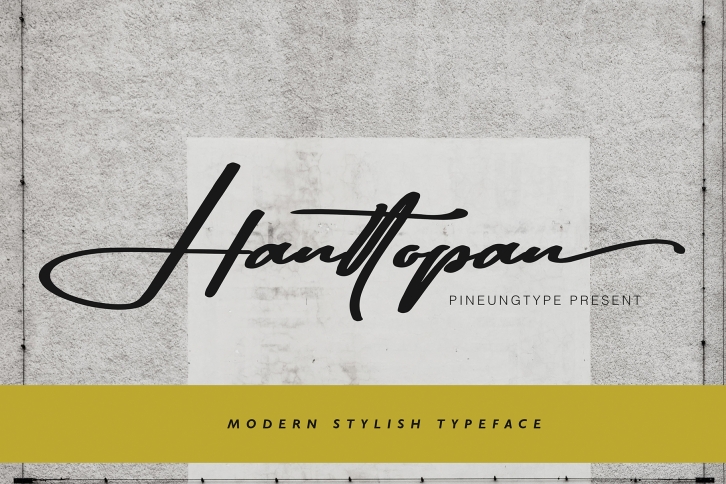
Hanttopan is a trendy and unique font with an authentic style. It was designed by Pineungtype and it's a great choice for creative people who need such a font. It was released on February 1, 2020 and the file size is 13.87 MB. Hanttopan will add an organic vibe to any design idea!